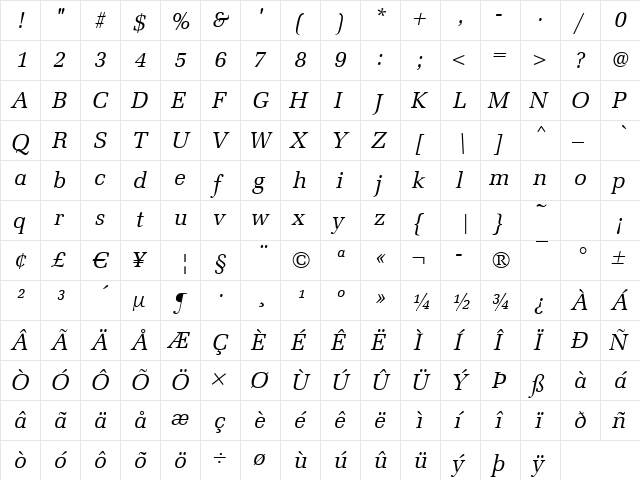
Marseille Italic
Design Context for Marseille Typeface
Marseille offers clean, dependable letterforms without strong stylistic allegiance, making it a practical choice for designers who need flexibility. The dynamic lean of this cut emphasises speed and emphasis in any layout.
Pro Tip: Try Marseille for annotation and caption copy alongside an upright companion — the contrast in angle creates a dynamic but ordered typographic system.